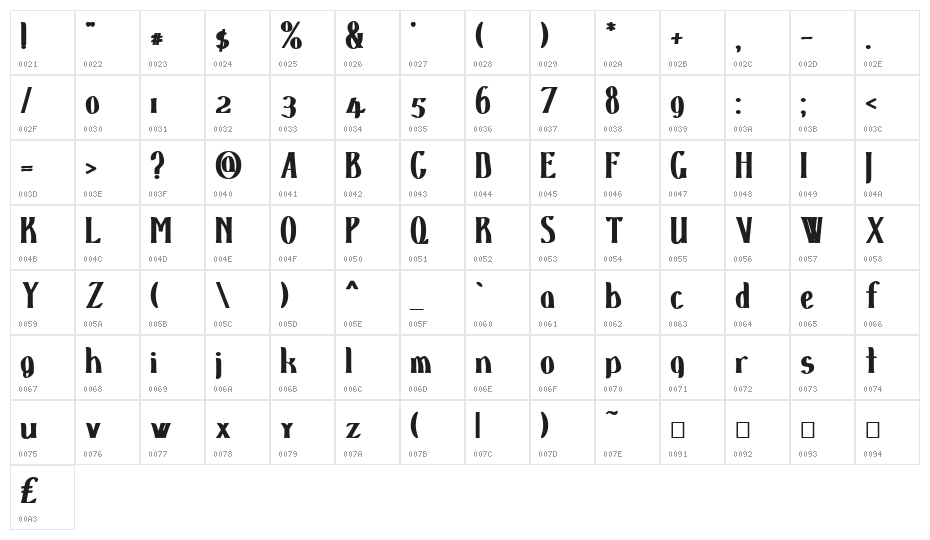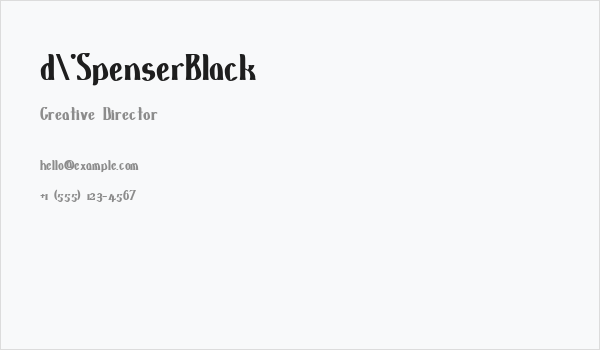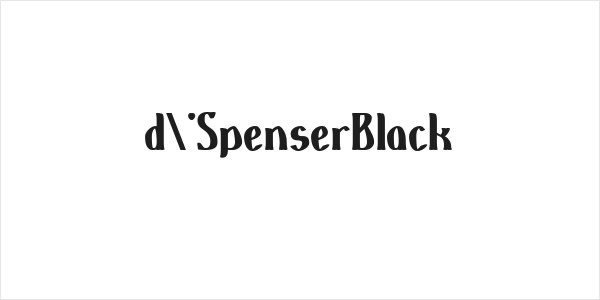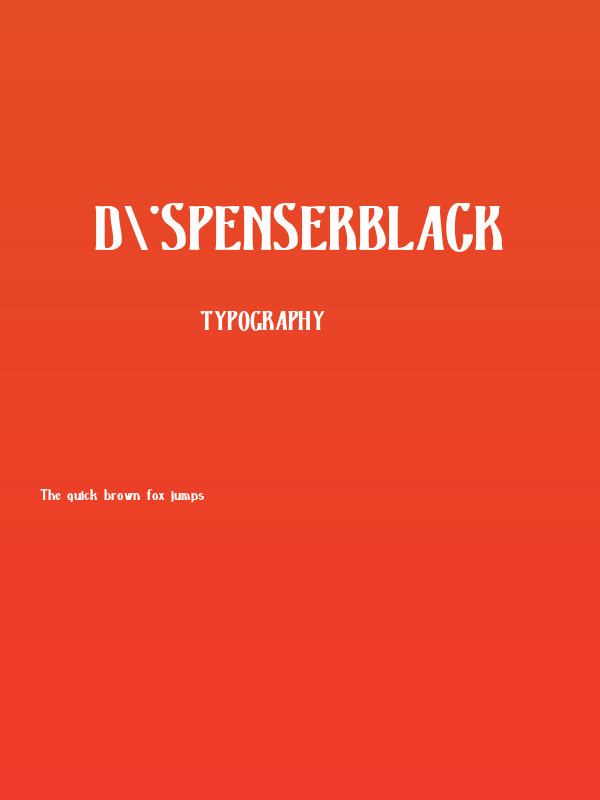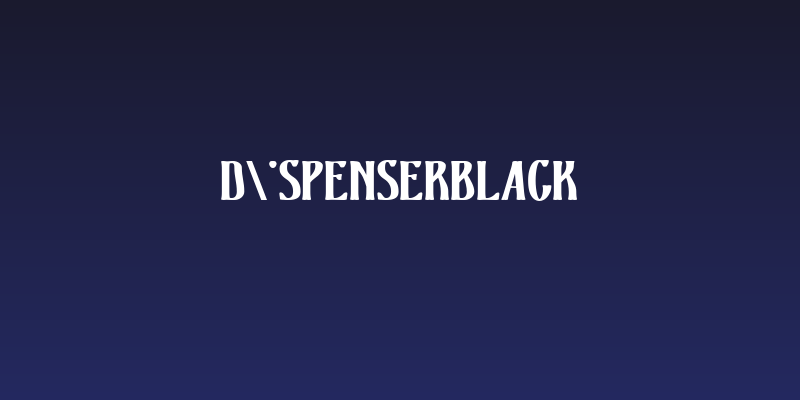
d'SpenserBlack Font
d'SpenserBlack Description
This font features a bold and expressive style with thick, uneven strokes that give it a hand-drawn appearance. The uppercase letters are tall and commanding, while the lowercase letters maintain a playful yet robust presence. The numbers and special characters are designed with the same boldness, ensuring consistency across all elements. The font's unique character is evident in its slightly irregular shapes and varying stroke widths, which add a dynamic and energetic feel. Its distinctive style makes it suitable for creative and eye-catching designs.
| Proposed Projects | Ideal for posters, branding, packaging, and any project requiring a bold, artistic touch. |